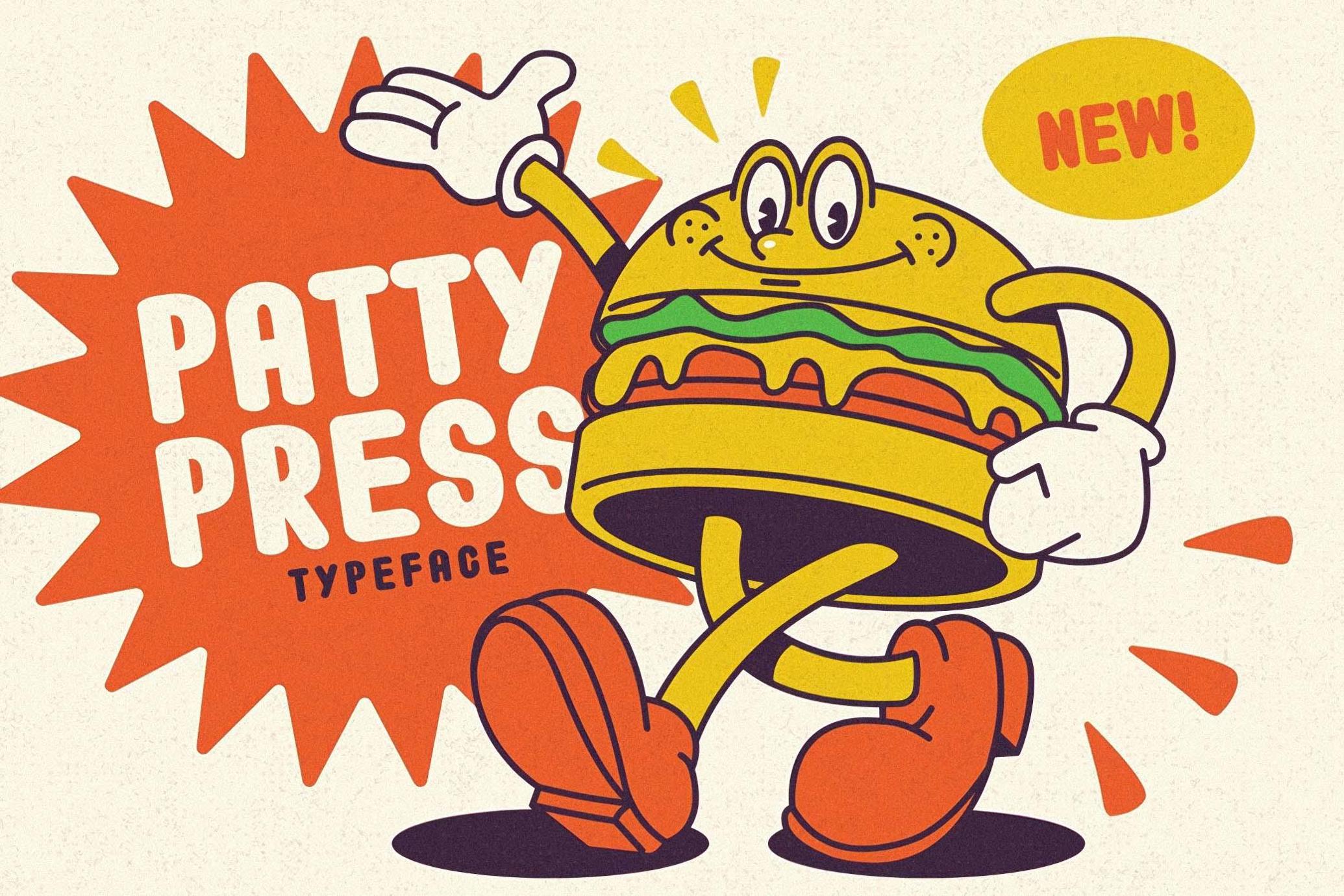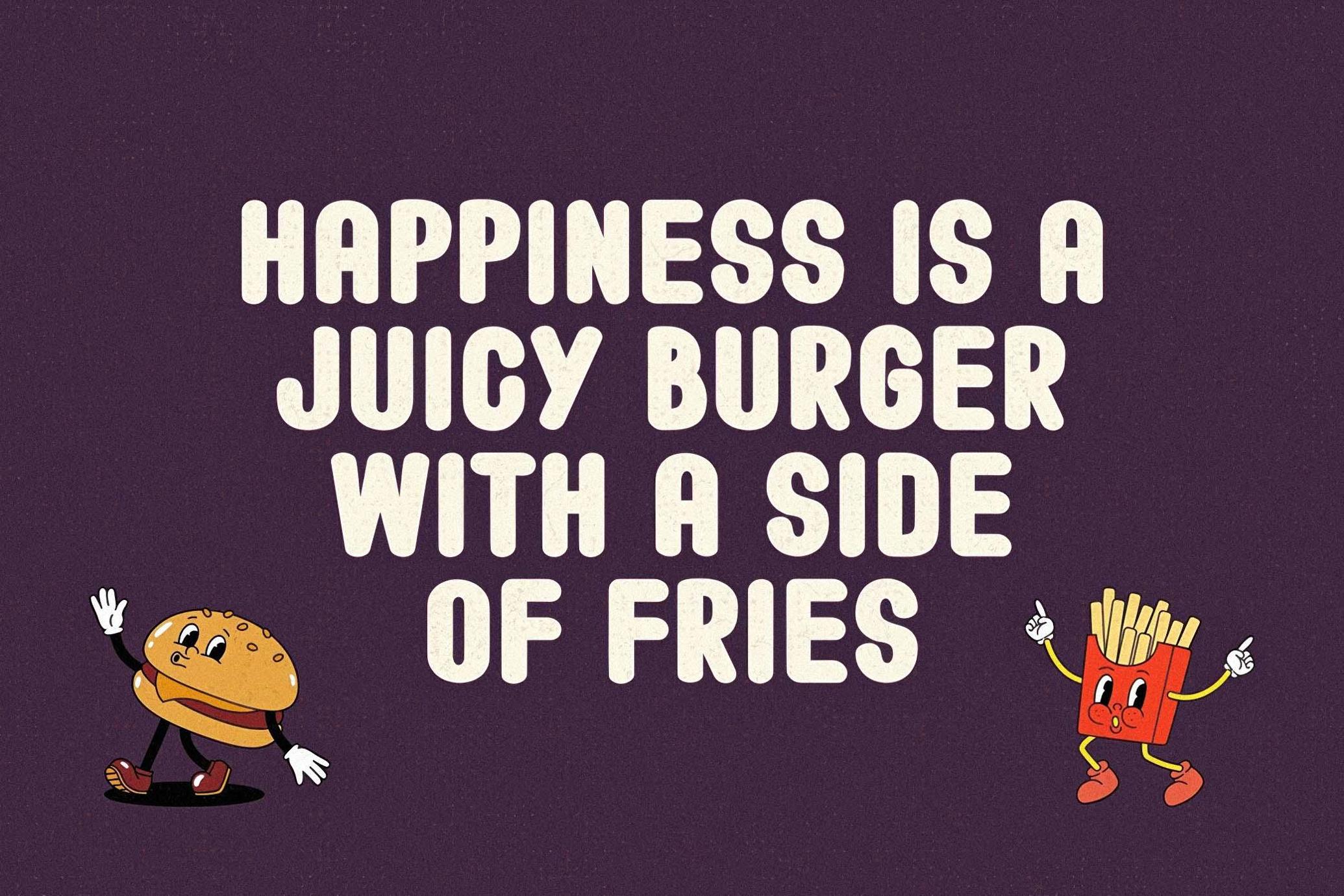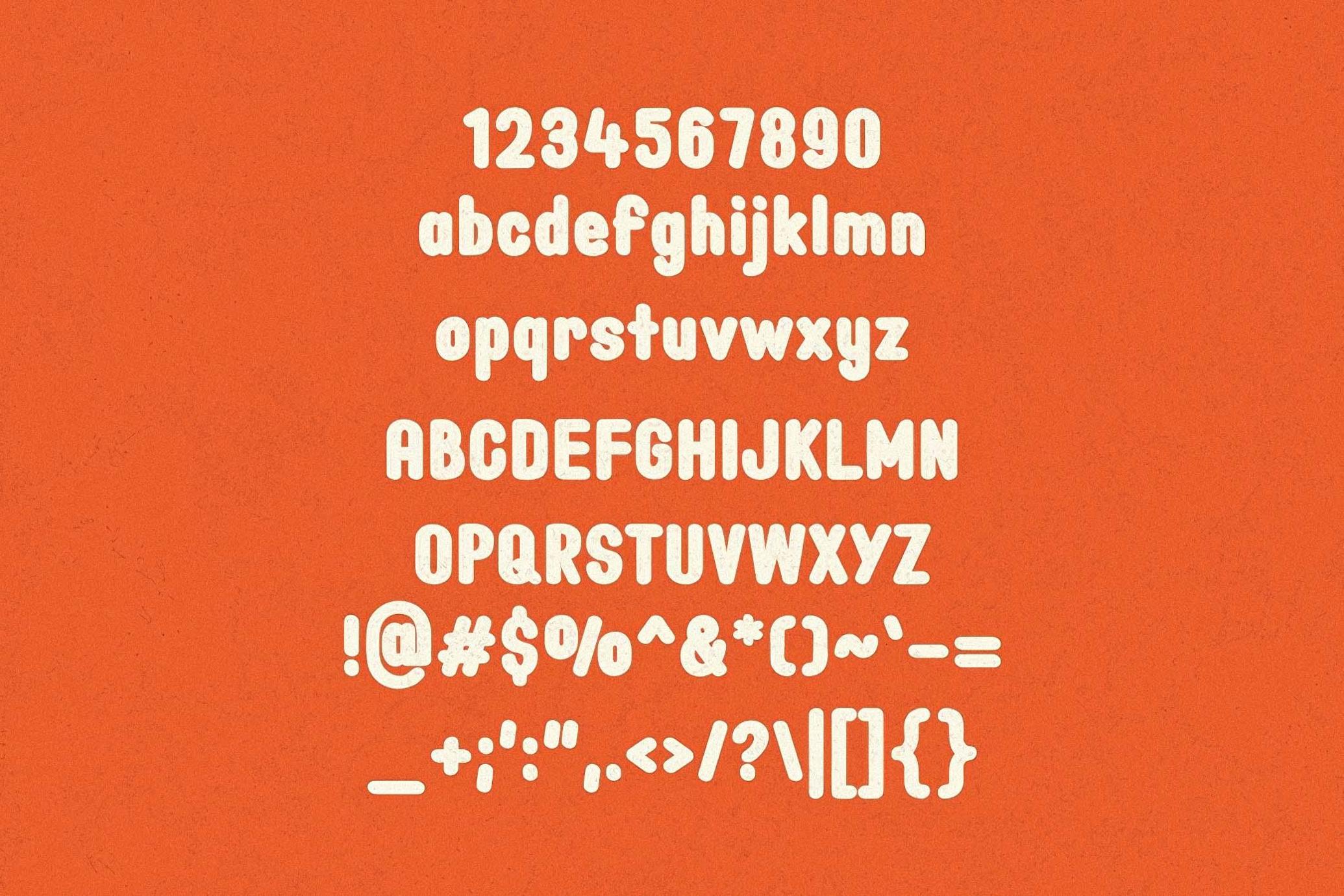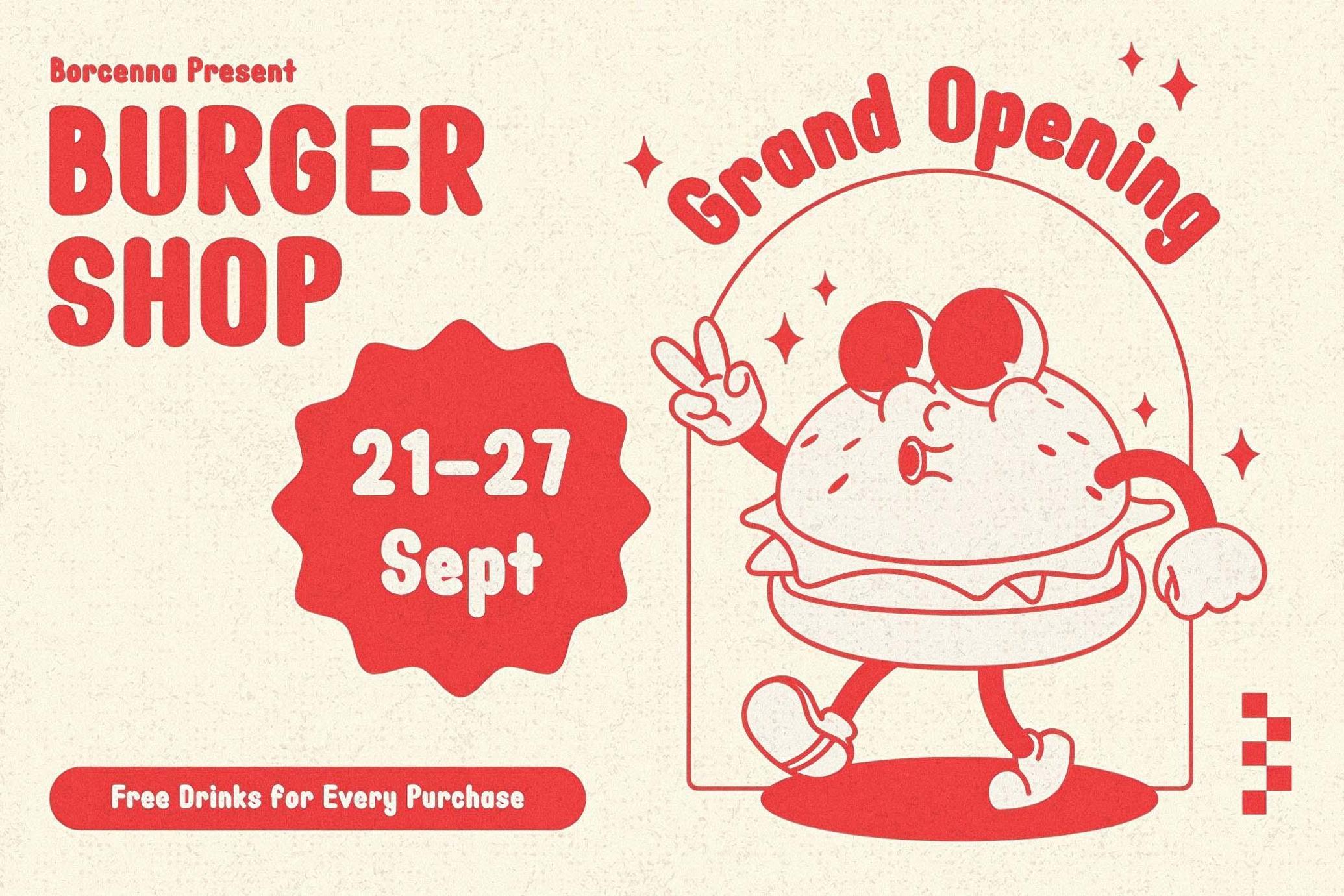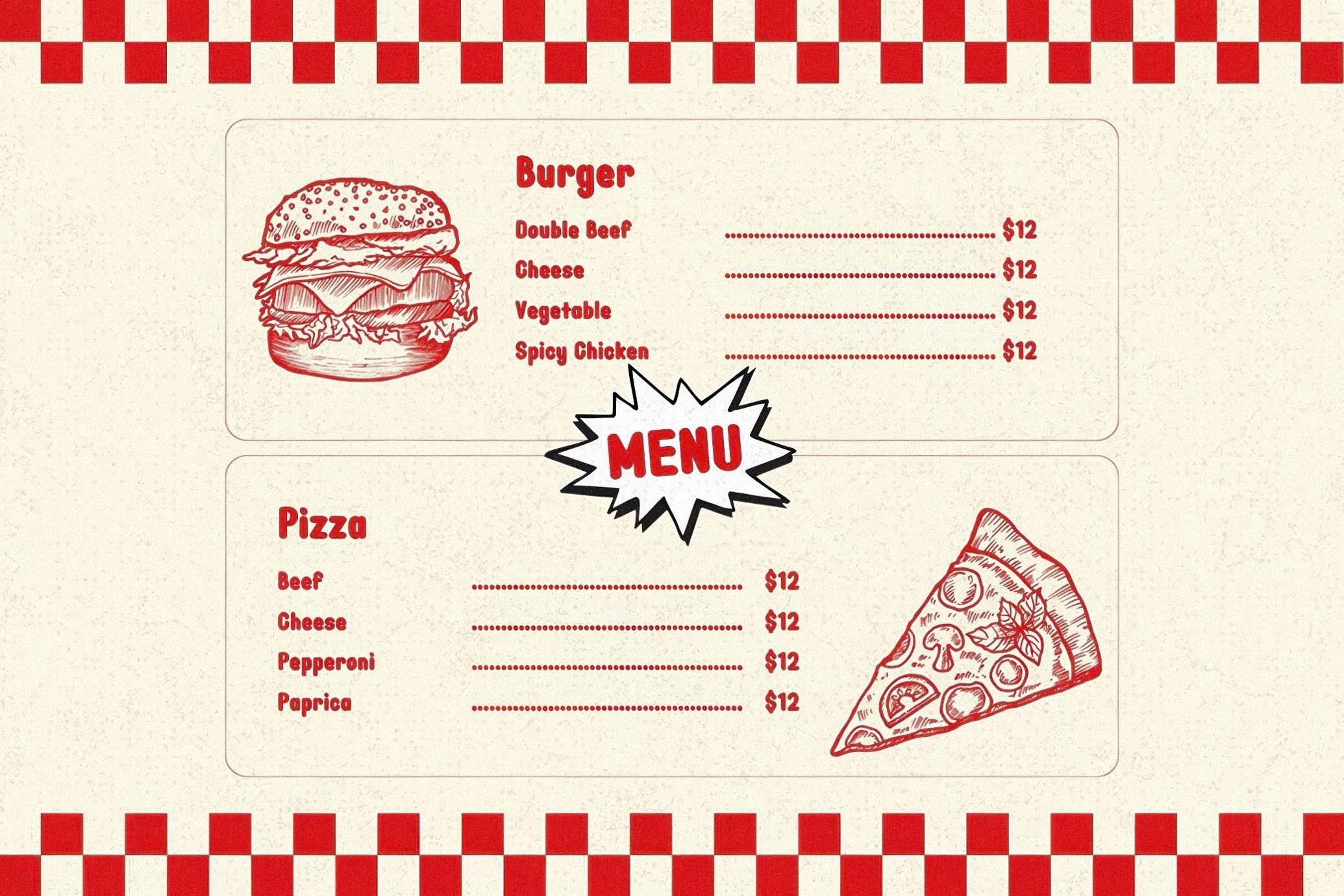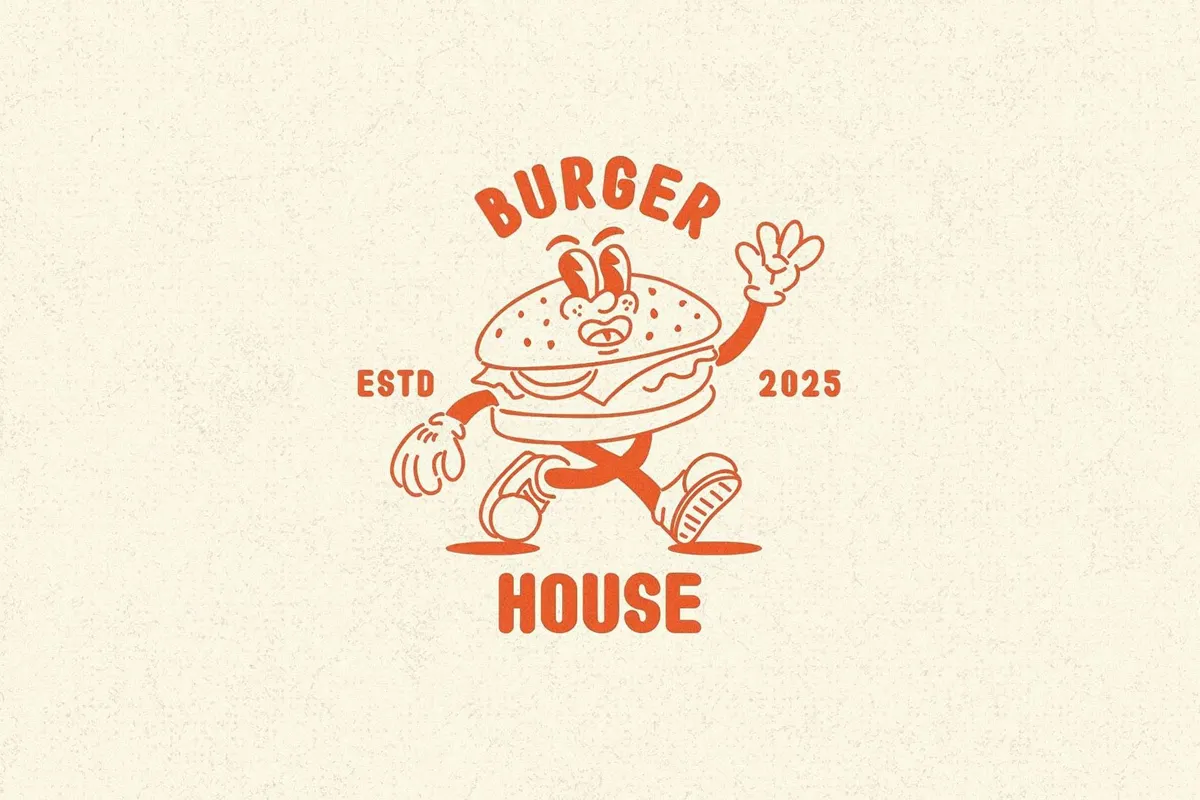
Patty Press - Friendly Typeface
Introducing Patty Press, a warm and welcoming rounded sans typeface designed to bring joy and personality to your brand. With its soft, playful curves and inviting letterforms, Patty Press is perfect for restaurants, cafés, food trucks, and family-friendly brands looking to create a fun and engaging experience.
Whether you're designing a deliciously bold menu, a mouthwatering logo, or playful packaging, this typeface serves up the perfect mix of charm and readability. Its rounded edges and friendly aesthetic make it ideal for kids' menus, casual dining spots, and brands that want to feel approachable and fun.